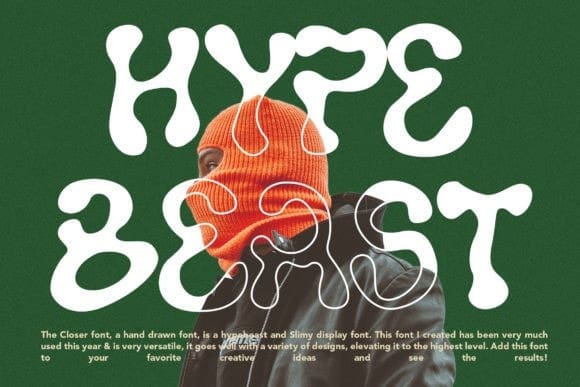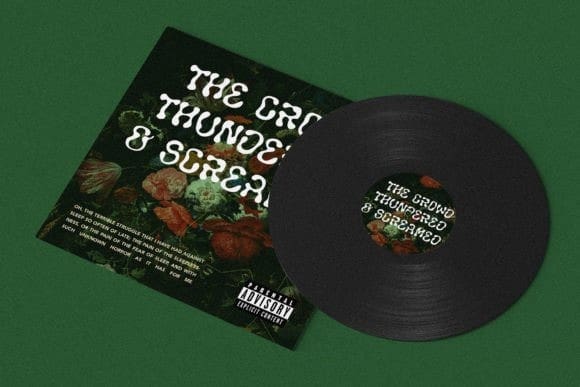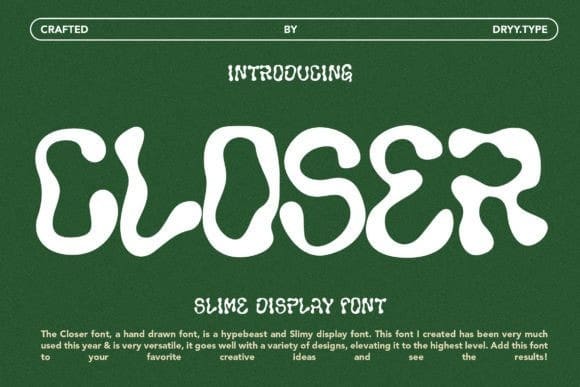
Closer Display Font
Closer Display Font A display typeface that has futuristic characters and a cyberpunk theme font to work with.
The Closer font, a hand drawn font, is a hypebeast and Slimy display font. This font I created has been very much used this year & is very versatile, it goes well with a variety of designs, elevating it to the highest level. Add this font to your favorite creative ideas and see the results!